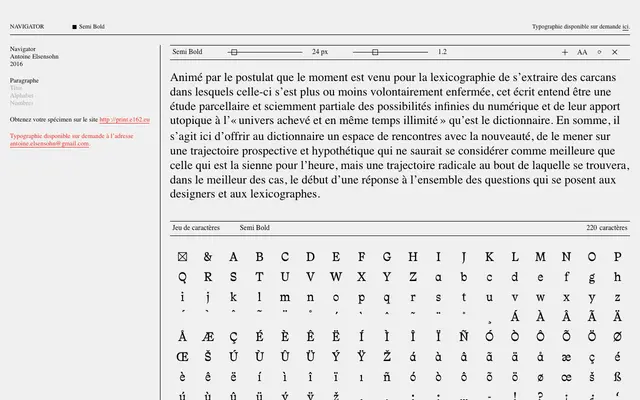
Navigator
E162 · Antoine Elsensohn · 2016
A single-weight geometric sans-serif by Antoine Elsensohn, released through French foundry E162 in 2016.
Designed by Antoine Elsensohn and available on request through E162, Navigator offers a single Semi Bold weight with a character set of 220 glyphs. The typeface is positioned for editorial and display use, with a printed specimen available via the foundry's print portal. Its limited weight range and restrained character set give it a focused, purpose-built character.
The specimen and visual weight suggest a clean geometric sans-serif construction. The single Semi Bold weight and minimal character set point to a display-oriented geometric typeface.